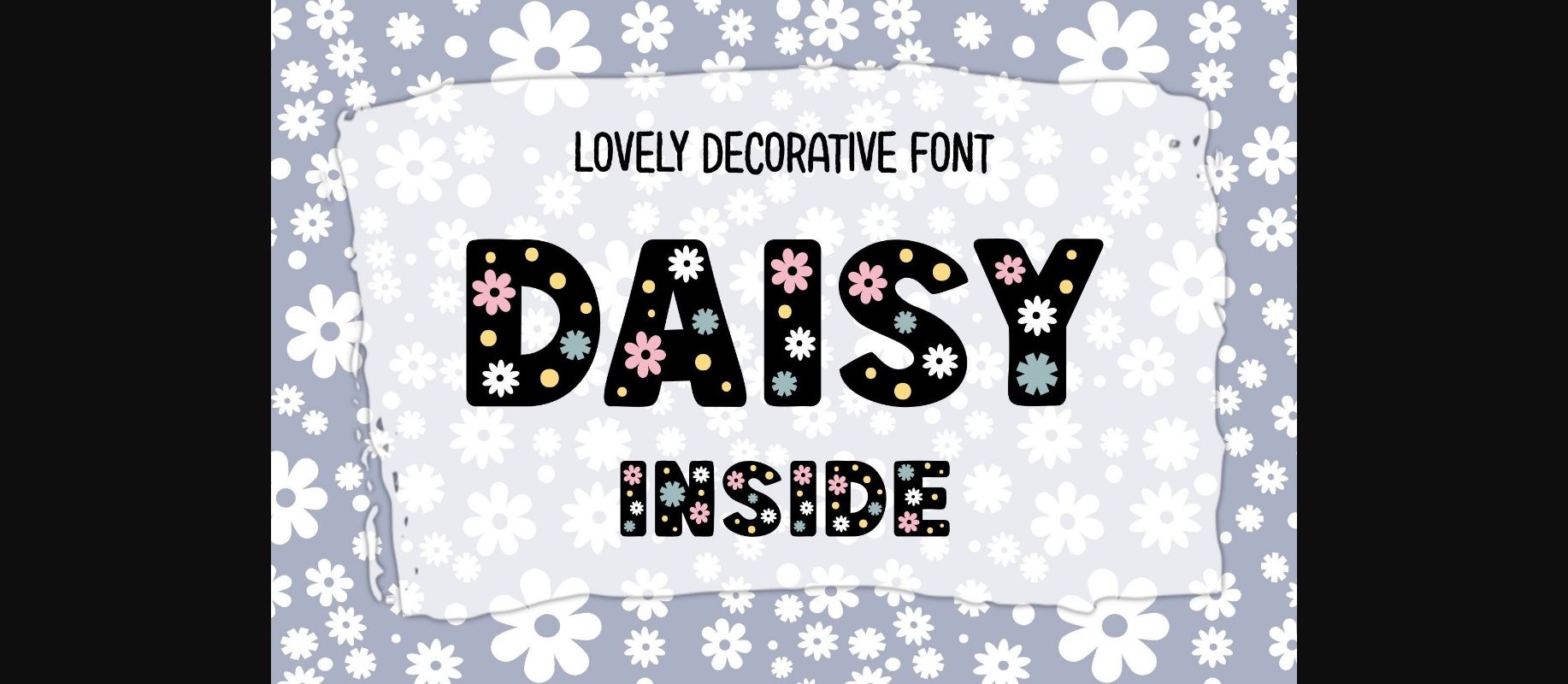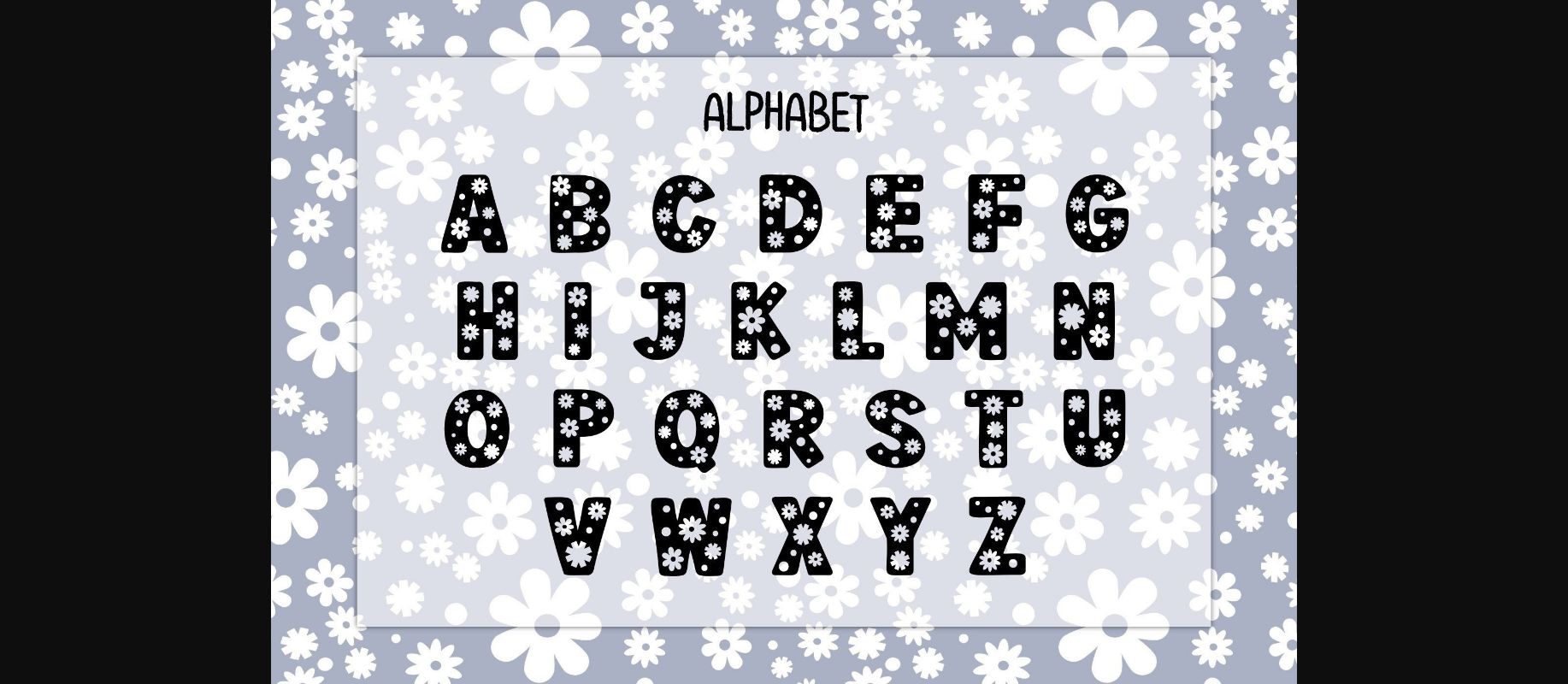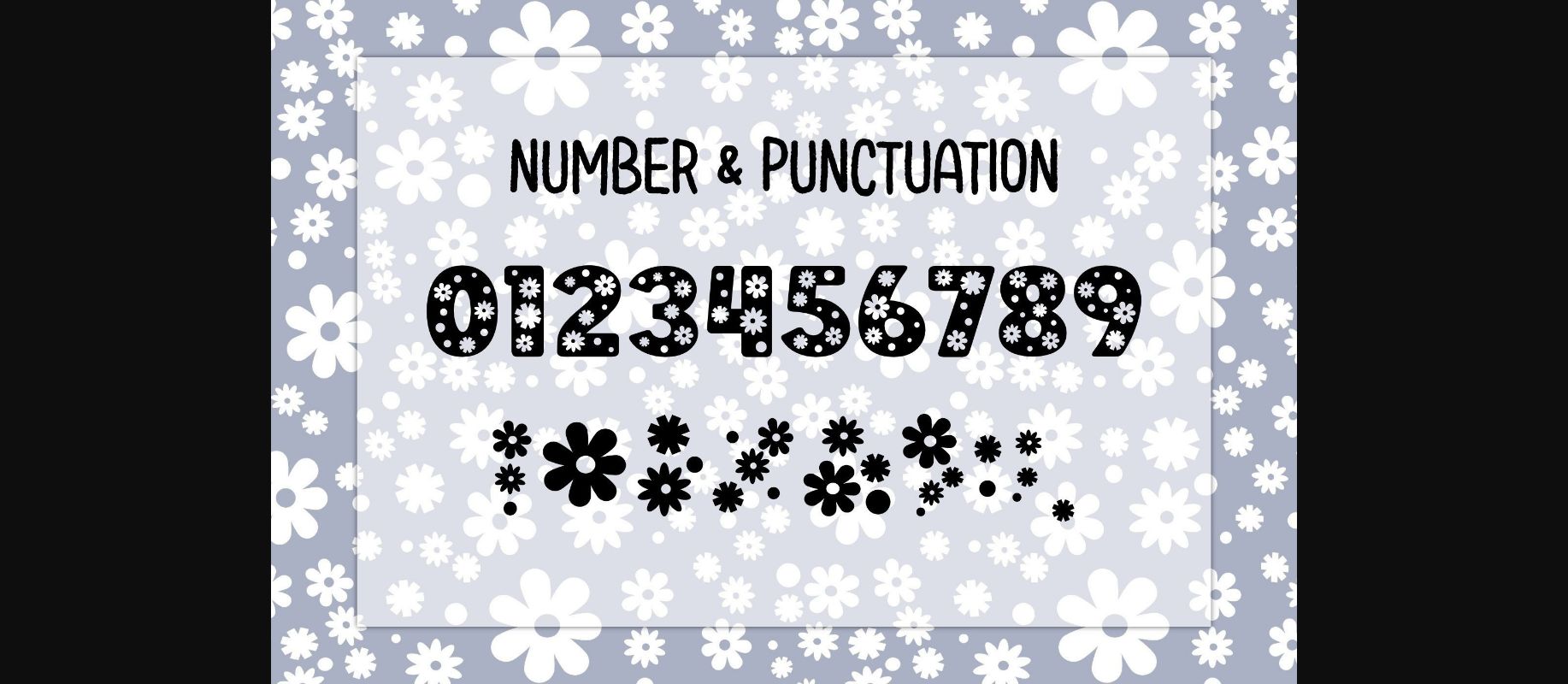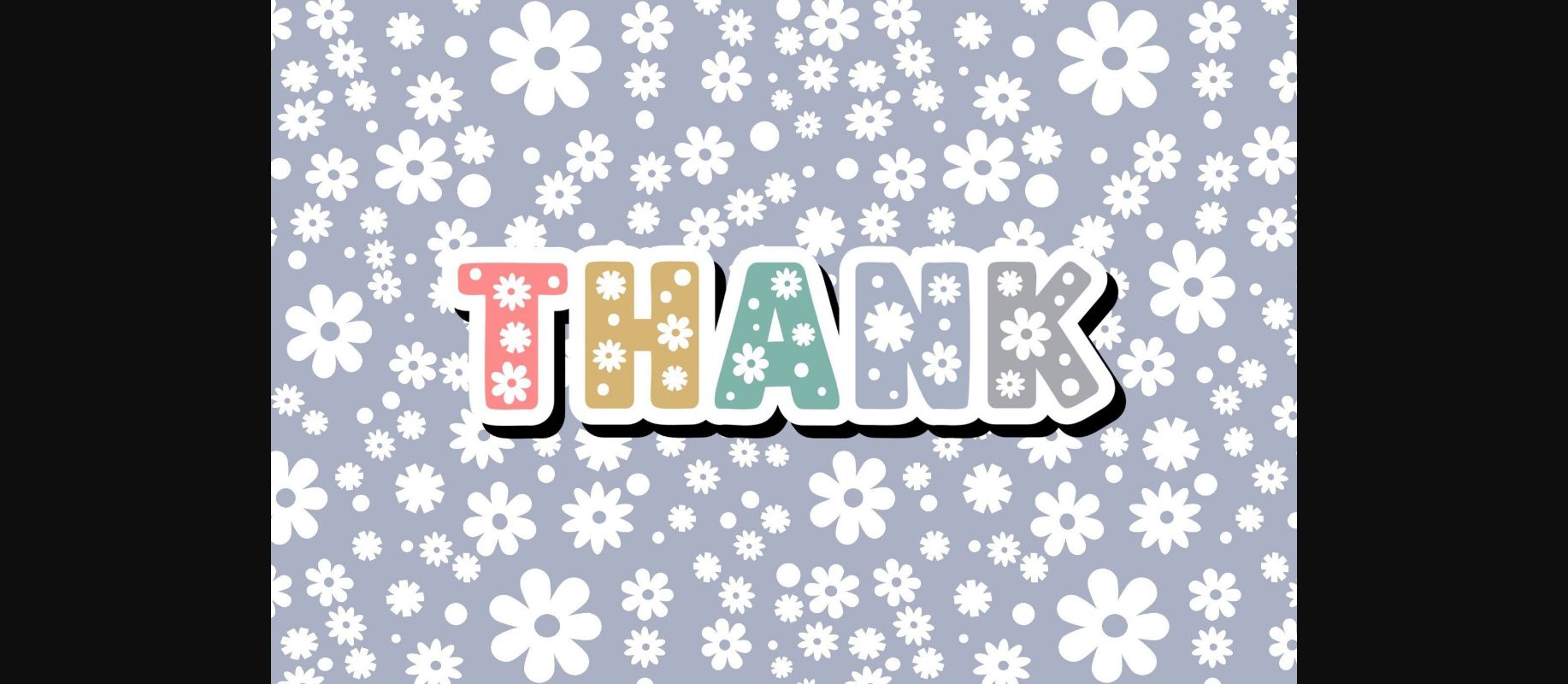
HomeDecorative FontsDaisy Inside Font Decorative Fonts Daisy Inside Font FacebookXPinterestWhatsApp 1 of 6 ... Daisy Inside Font Poster 2... Daisy Inside Font Poster 3... Daisy Inside Font Poster 4... Daisy Inside Font Poster 5... Daisy Inside Font Poster 6... About Daisy Inside Font Daisy Inside is a lovely and jolly decorative font. This font is the perfect fit for all of your logos, branding, social media, crafty DIY projects, and much more! DOWNLOAD NOW People also explored Billy Love Font Adonitha Font Love Girl Font Backgrounds Font Christabel Font Midnight Diner Font Adiline Font Anita Font Bismark Font 389 0 TagsDaisy Inside Font Previous articleParadise FontNext articleSweater Cozy Font LEAVE A REPLY Cancel reply Comment: Please enter your comment! Name:* Please enter your name here Email:* You have entered an incorrect email address! Please enter your email address here Website: Save my name, email, and website in this browser for the next time I comment. Personal Use Free Coconote Personal Use Free Read more about this font Abberancy Personal Use Free Read more about this font Marthissa Personal Use Free Read more about this font Feather Script Personal Use Free Read more about this font BLOG 5 Fonts That Will Dominate Design Trends in 2026 5 Fonts for 2026 That Will Dominate Design Trends Typography plays a critical role in visual communication, and as we look ahead to 2026, it’s... To increase your work productivity, choose the most readable fonts. Where to Buy American Fonts Online in 2024 Top 7 Google Fonts Alternatives for Faster and Privacy-Friendly Web Design (2025)